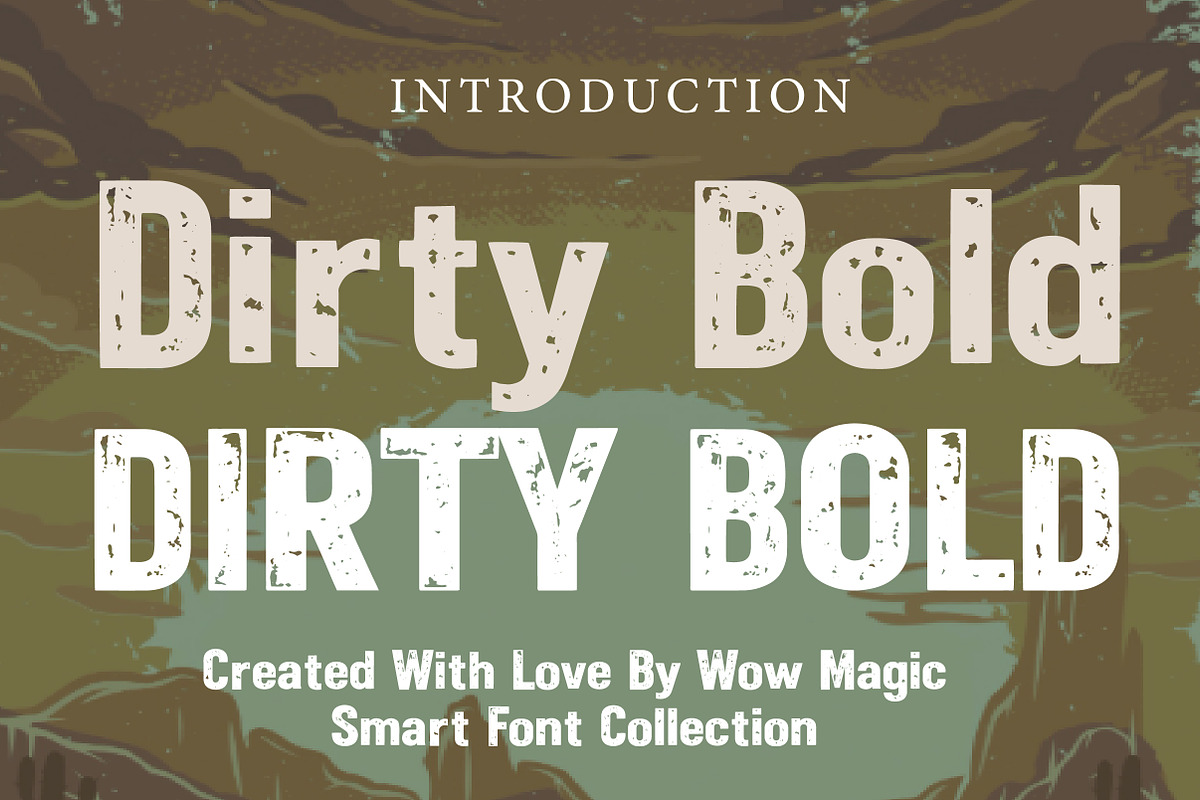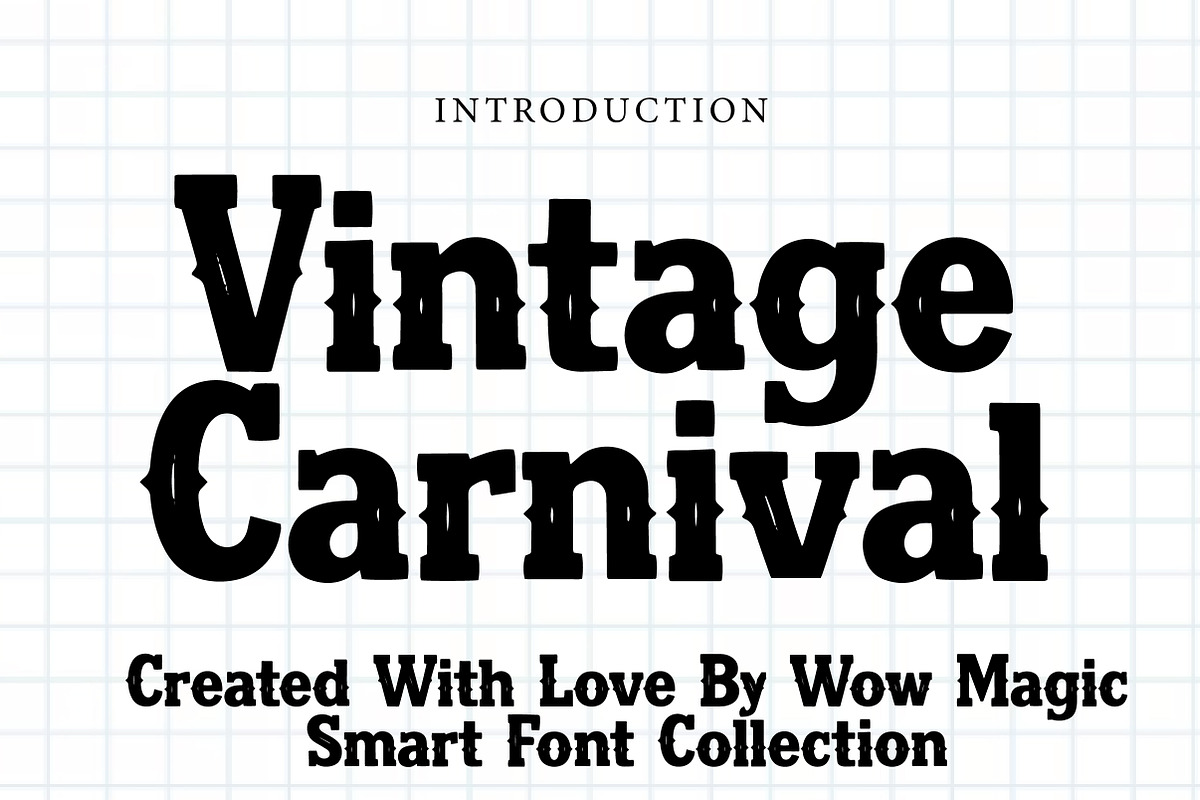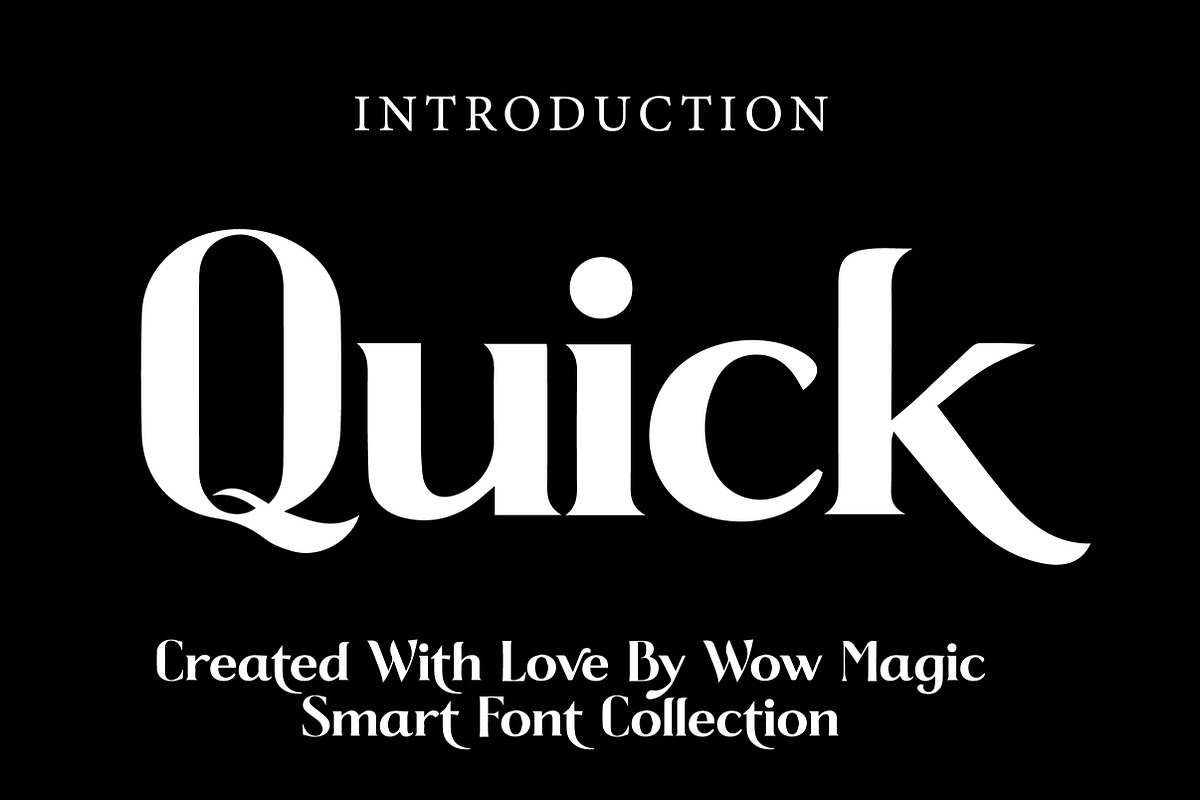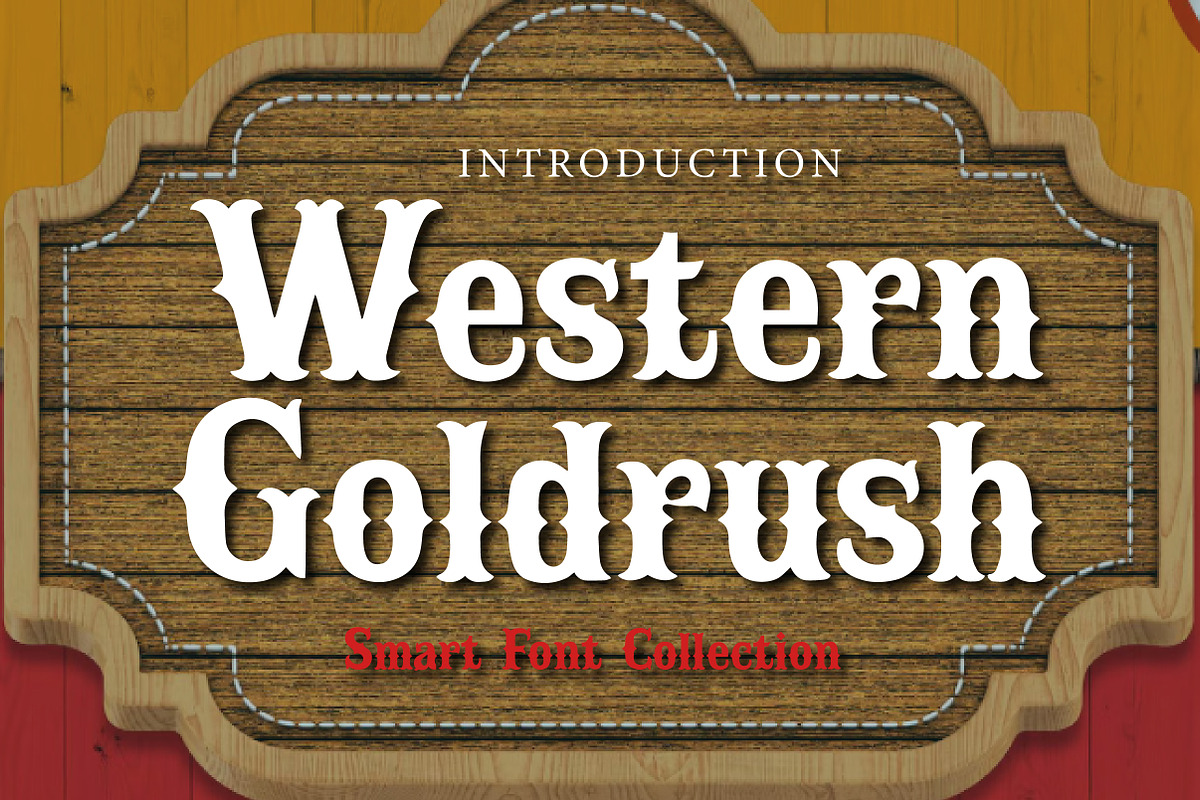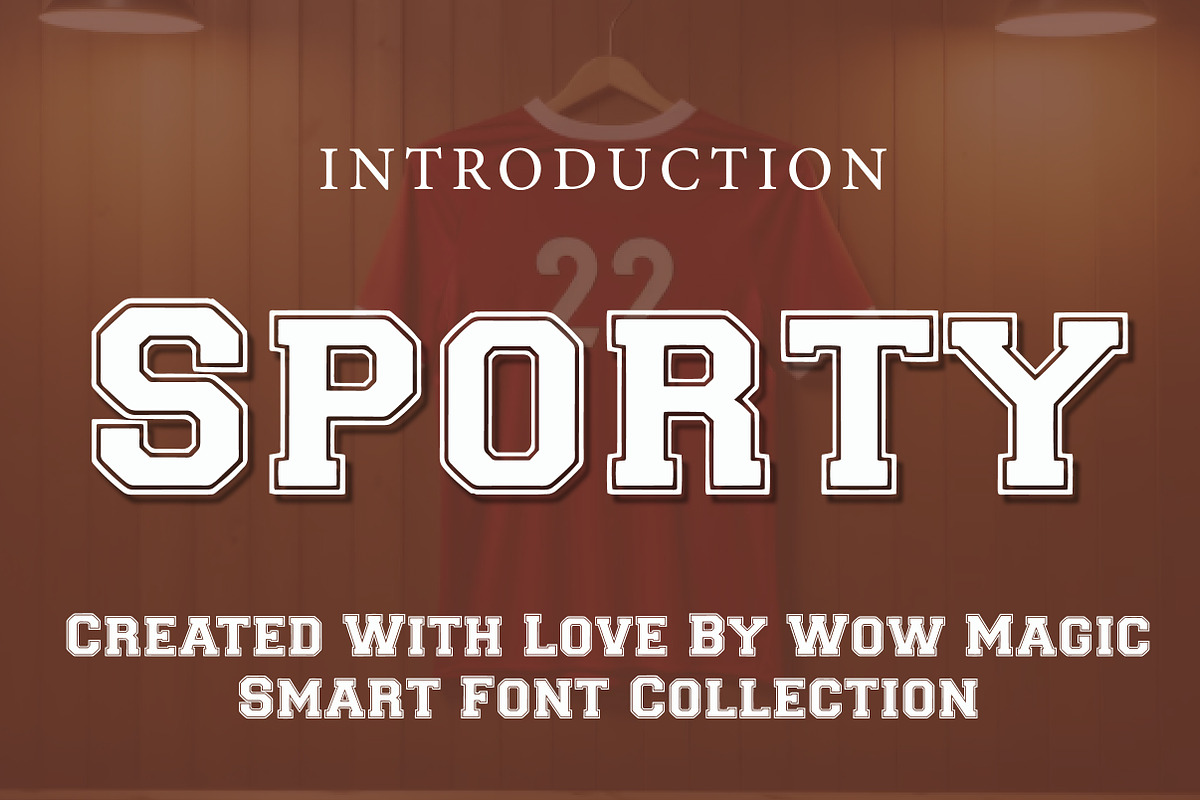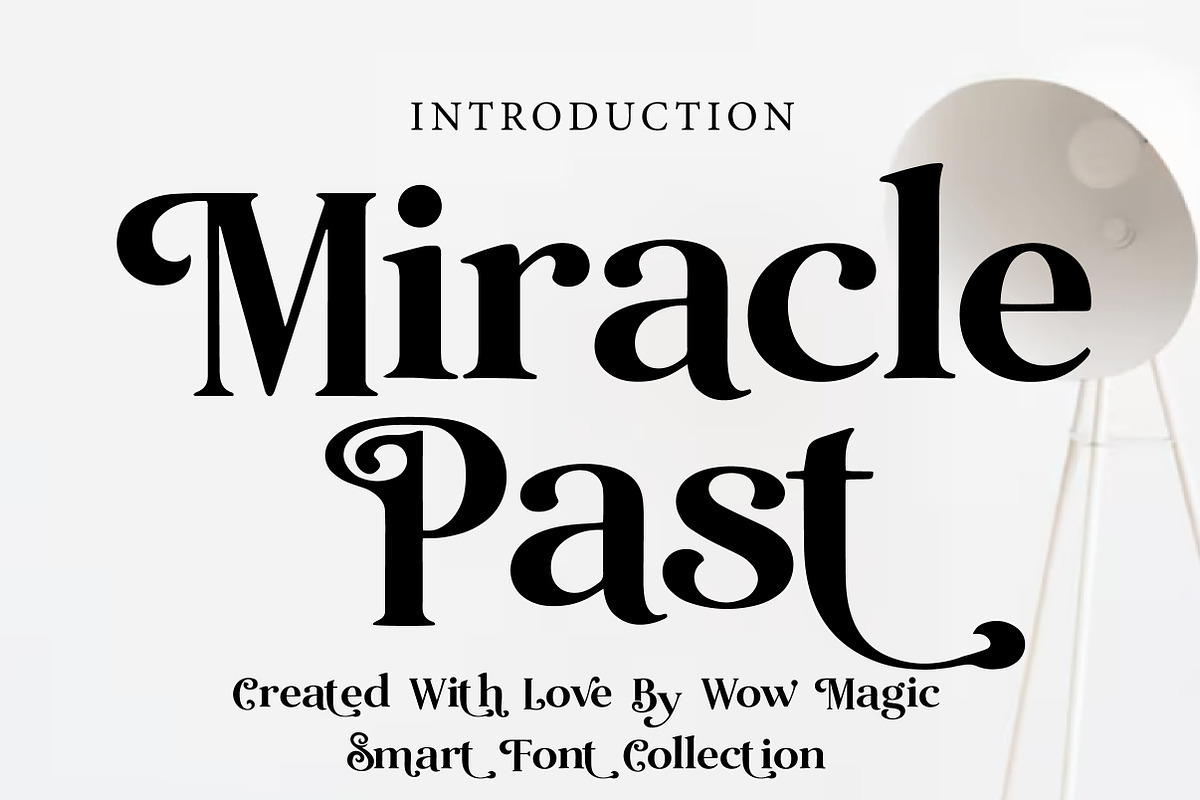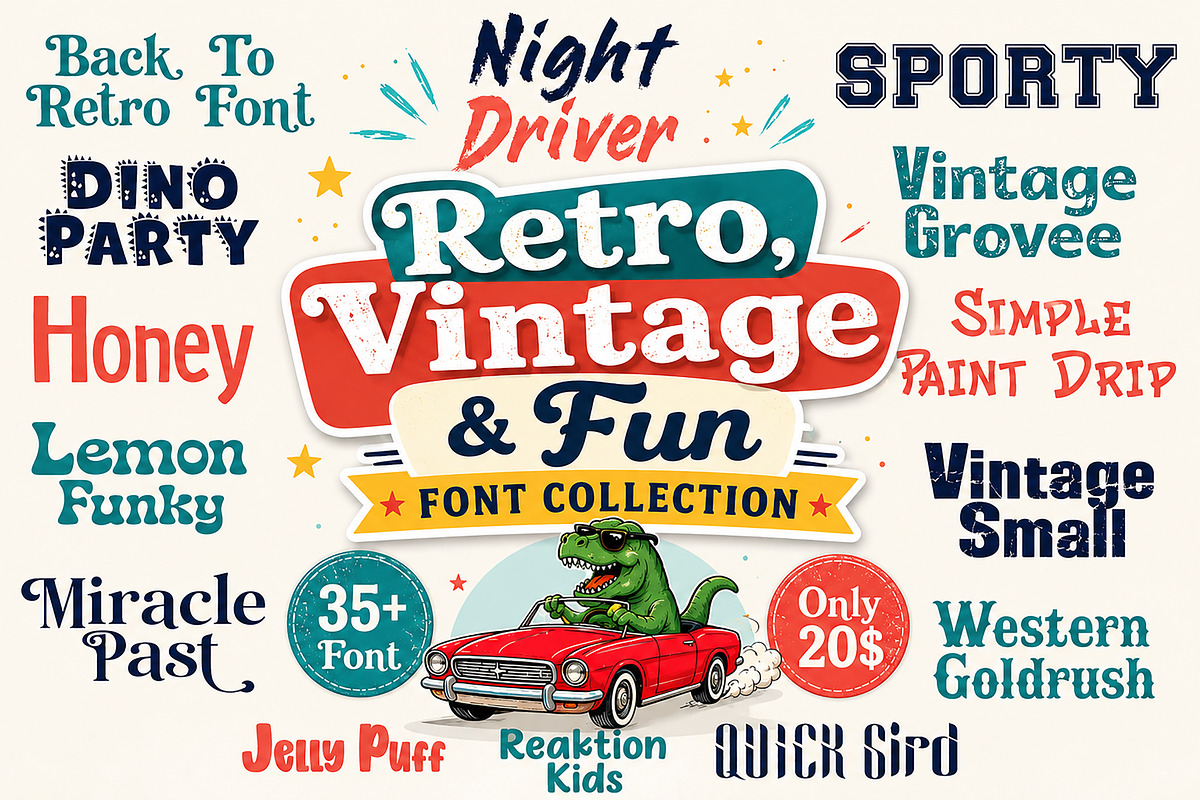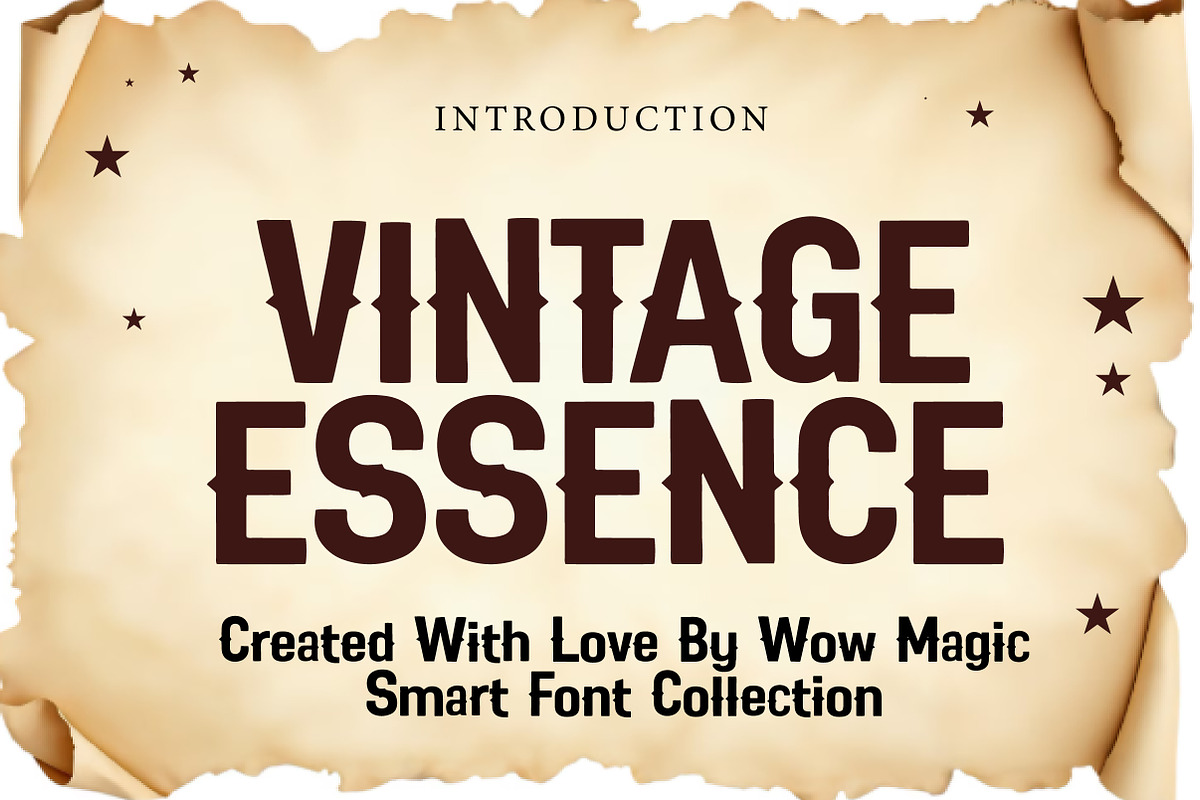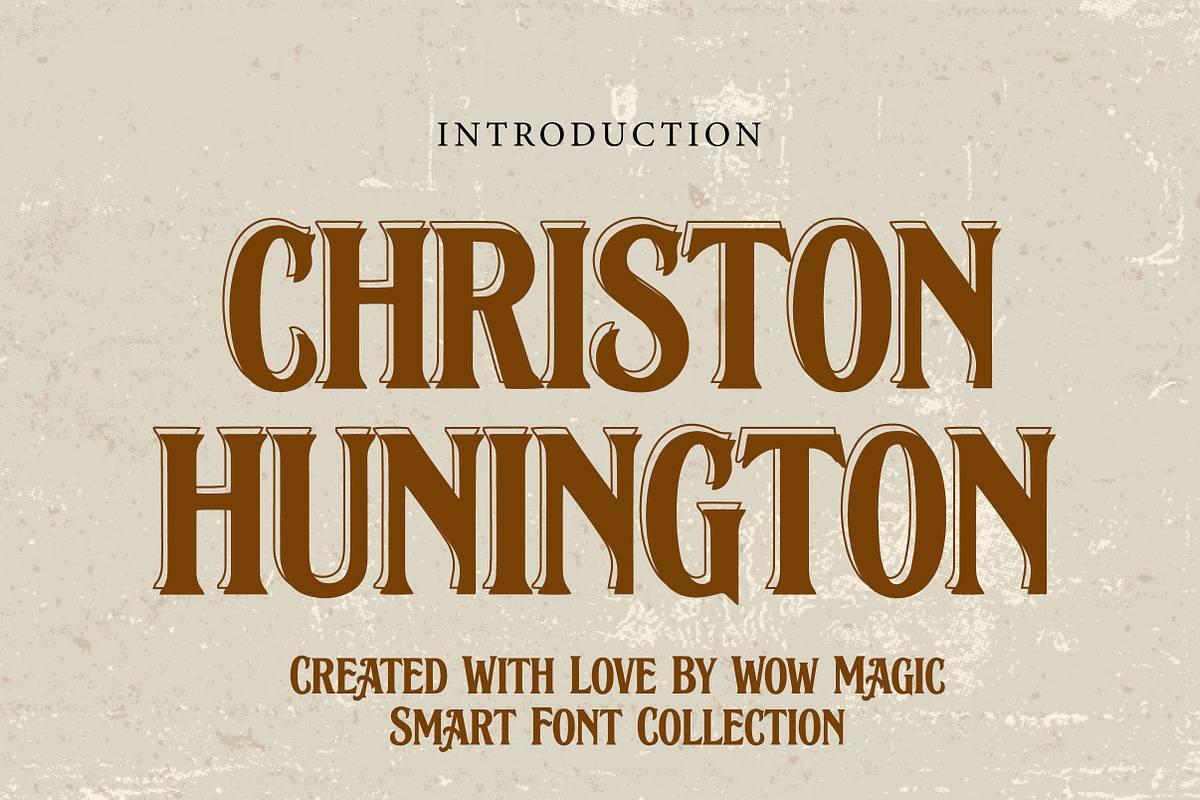
Retro, Vintage & Fun Font Collection
Introducing Retro, Vintage & Fun Font Collection — a versatile bundle featuring 35+ unique display fonts designed to bring personality, nostalgia, and creativity to your projects.
This collection includes a wide variety of styles, from retro and vintage-inspired lettering to playful kids fonts, sporty typefaces, western designs, groovy lettering, hand-painted styles, and bold display fonts. Whether you're creating branding, merchandise, social media graphics, packaging, posters, book covers, invitations, or Cricut projects, this bundle provides endless creative possibilities.
Each font has its own distinctive character, making it easy to mix and match styles for eye-catching designs. Perfect for designers, crafters, entrepreneurs, print-on-demand sellers, and content creators.
Font Styles Included
Retro Fonts
Vintage Fonts
Groovy Fonts
Sport Fonts
Western Fonts
Kids Fonts
Handwritten Fonts
Paint Brush Fonts
Distressed Fonts
Fun Display Fonts
Bold Fonts
Decorative Fonts
Bring your creative ideas to life with this massive font collection and add a unique touch to every design.